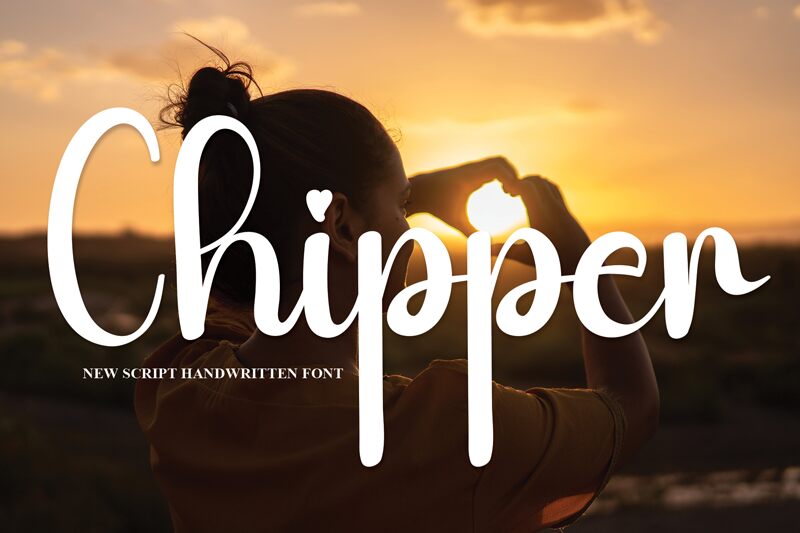
Chipper
Chipper is a playful, hand-crafted font that exudes a charming and casual elegance. The organic, script-like strokes and slightly irregular shapes give this font a unique, handwritten feel, evoking a sense of warmth and personality. The flowing, interconnected letterforms create a cohesive and visually appealing aesthetic, making Chipper an excellent choice for a variety of applications, from branding and marketing materials to editorial design and product packaging. Its versatility and personality make it a versatile tool for designers seeking to add a touch of handmade character to their projects.
Chipper's natural, expressive style lends itself well to projects that require a personal, approachable touch, such as wedding invitations, greeting cards, or lifestyle-focused brand identities. The font's fluid lines and subtle imperfections contribute to a sense of authenticity and charm, making it an ideal complement to artisanal or craft-inspired design concepts.